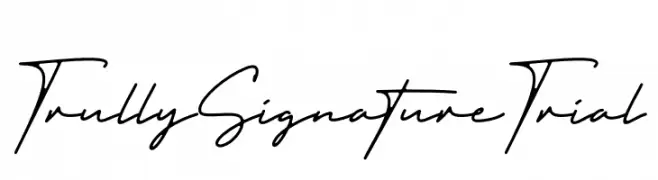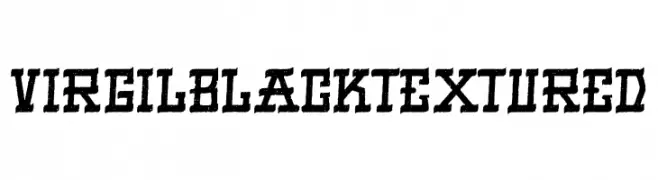
A dynamic, textured script font with high contrast and fluid strokes.
A delicate, flowing script font with elegant cursive letterforms.
A bold, expressive handwritten font with fluid, dynamic strokes.
A graceful and elegant handwritten script font with fluid, connected letters.
A bold, expressive handwritten font with dynamic strokes and artistic flair.
A modern, handwritten script with fluid, connected characters and medium contrast.
An elegant, cursive script font with flowing lines and graceful curves.
A graceful, cursive script font with a natural handwritten style.
A bold, textured font with a rugged, vintage style.
A sophisticated and elegant handwritten font with fluid strokes.